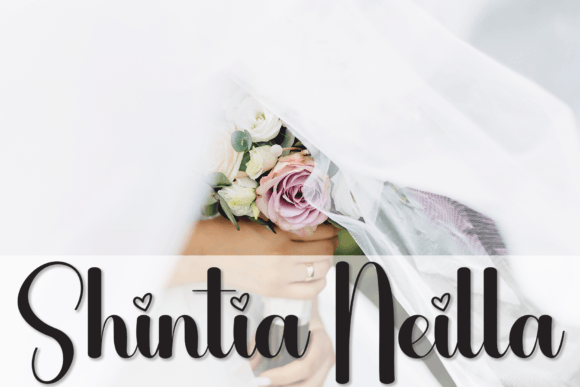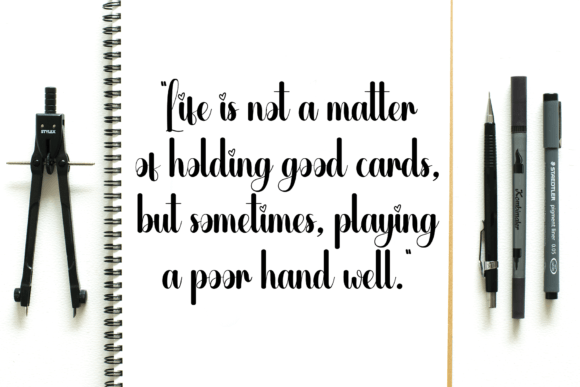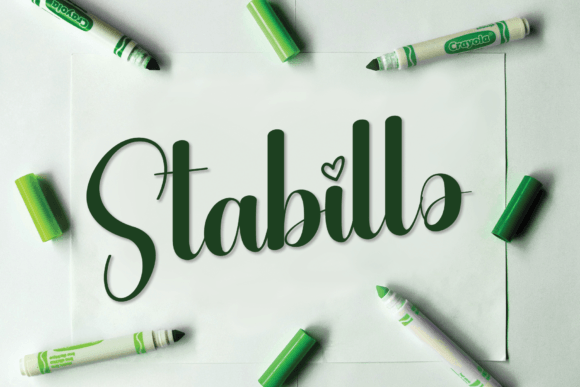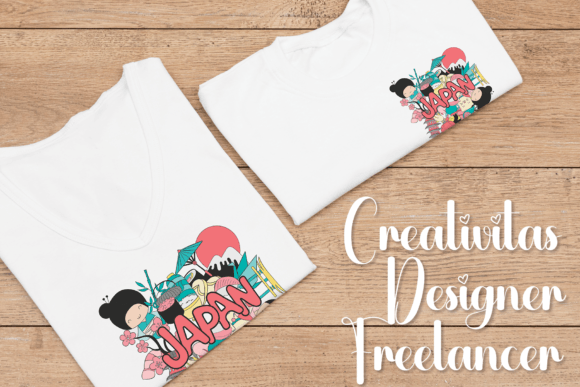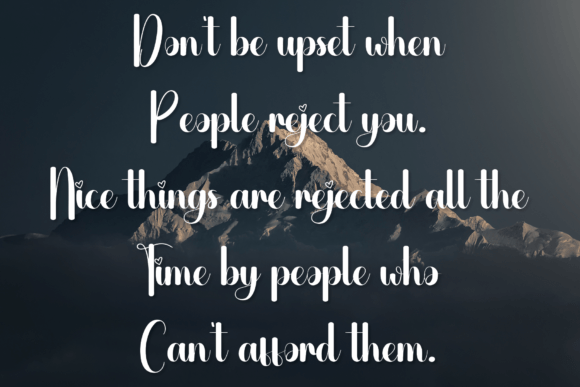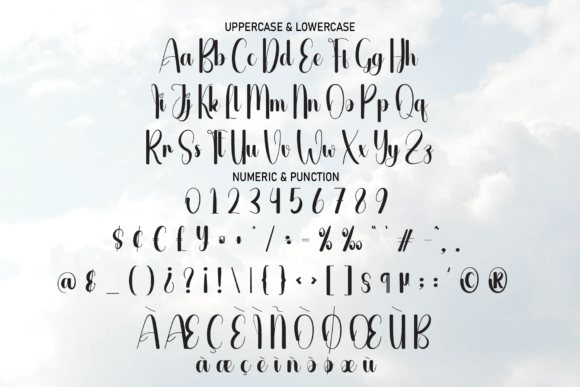
Introducing Brighty Font: The Ultimate Romantic Calligraphy Typeface
Are you a designer or crafter looking for a font that can add a touch of luxury and romance to your design projects? Look no further than Brighty Font, a beautiful calligraphy typeface that is sure to make your designs shine. With its unique and elegant characters that dance along the baseline, Brighty Font is the perfect choice for anyone looking to add a touch of sophistication and whimsy to their work.
What is Brighty Font?
Brighty Font is a romantic and sweet calligraphy typeface that features characters that are carefully crafted to dance along the baseline. This unique design element gives Brighty Font a playful and whimsical feel that is sure to capture the attention of your audience. With its elegant and flowing lines, Brighty Font is perfect for use in a variety of design projects, from wedding invitations and stationery to branding and packaging.
Key Features of Brighty Font
- Romantic and Sweet Design: Brighty Font features a romantic and sweet design that is perfect for creating elegant and sophisticated designs.
- Unique Character Design: The characters in Brighty Font are carefully crafted to dance along the baseline, giving the font a playful and whimsical feel.
- Luxury and Sophistication: Brighty Font is perfect for adding a touch of luxury and sophistication to any design project.
- Versatile: Brighty Font can be used in a variety of design projects, from wedding invitations and stationery to branding and packaging.
Why Choose Brighty Font?
There are many reasons why designers and crafters choose Brighty Font for their design projects. Here are just a few:
- Elegant and Sophisticated: Brighty Font is the perfect choice for anyone looking to add a touch of elegance and sophistication to their designs.
- Easy to Read: Despite its elegant design, Brighty Font is easy to read and can be used in a variety of design projects.
- High-Quality Design: Brighty Font is a high-quality design that is sure to impress your audience.
- Unique and Creative: Brighty Font is a unique and creative font that is sure to make your designs stand out.
How to Use Brighty Font
Brighty Font can be used in a variety of design projects, including:
- Wedding Invitations and Stationery: Brighty Font is perfect for creating elegant and sophisticated wedding invitations and stationery.
- Branding and Packaging: Brighty Font can be used to add a touch of luxury and sophistication to branding and packaging designs.
- Signage and Displays: Brighty Font can be used to create eye-catching signage and displays.
- Digital Designs: Brighty Font can be used in digital designs, such as social media graphics and website headers.
Tips for Using Brighty Font
Here are a few tips for using Brighty Font in your design projects:
- Use it Sparingly: Brighty Font is a bold and elegant font, so use it sparingly to add emphasis to your designs.
- Pair it with Other Fonts: Brighty Font can be paired with other fonts to create a unique and creative design.
- Experiment with Colors: Brighty Font looks great in a variety of colors, so experiment with different colors to find the one that works best for your design.
Brighty Font is a beautiful and elegant calligraphy typeface that is perfect for adding a touch of luxury and romance to your design projects. With its unique and creative design, Brighty Font is sure to make your designs stand out. Whether you’re a designer or crafter, Brighty Font is a great choice for anyone looking to add a touch of sophistication and whimsy to their work.